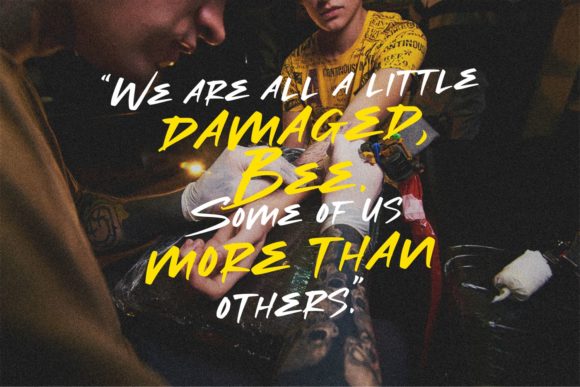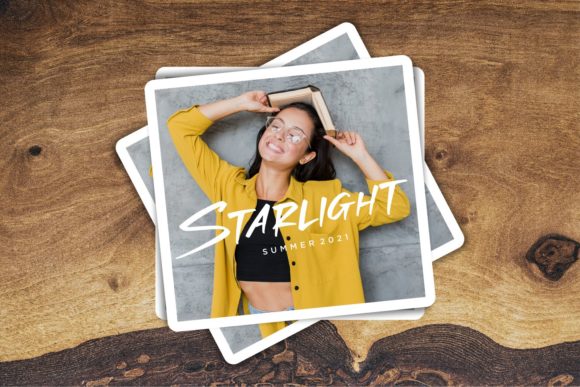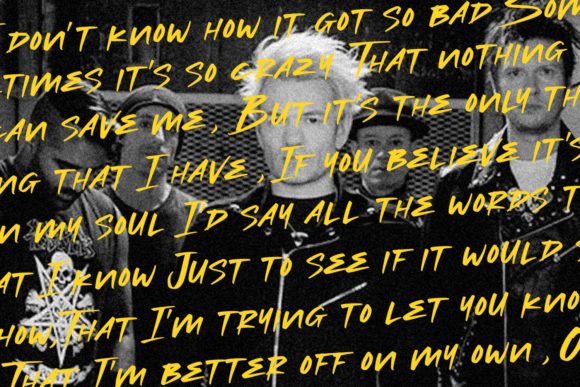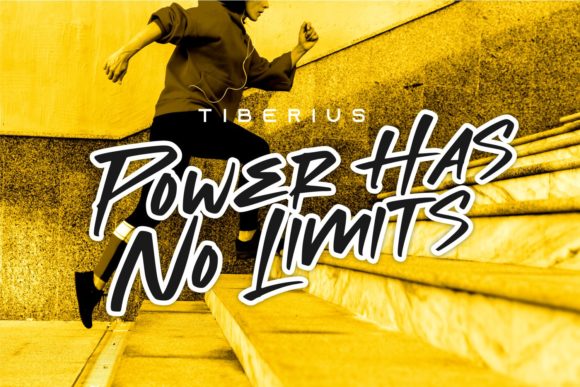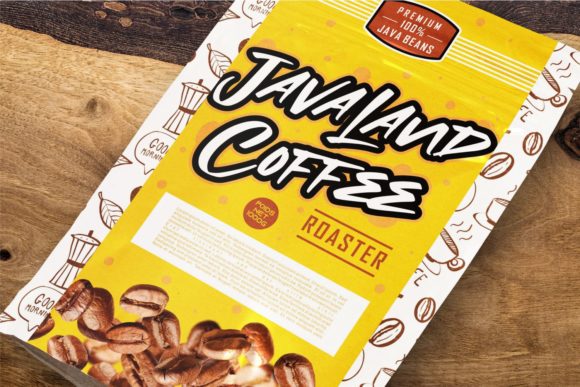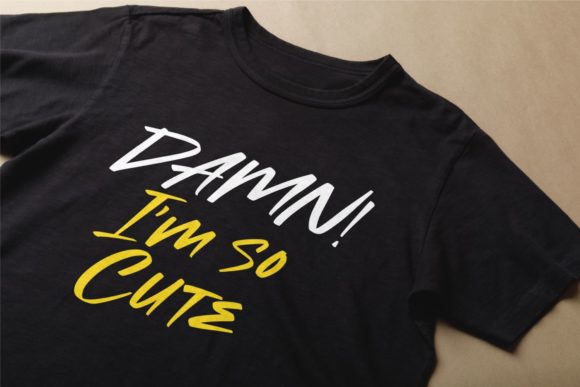
Introduction to Herojuana Font
Have you ever been in the midst of a creative project, staring at a blank page or screen, trying to find the perfect font to bring your vision to life? That’s exactly what happened to many designers when they discovered the Herojuana Font.
This modern display font has been a game-changer in the design world, offering a perfect blend of readability, boldness, and style. With its unique lines and sleek design, Herojuana Font is a valuable resource for any designer looking to elevate their work. Whether you’re working on a fashion branding project or creating an editorial design, this font is sure to impress.
Key Features of Herojuana Font
- High-quality, unique design ideal for creative projects, including graphics, logos, and typography.
- Includes a wide range of characters and glyphs, making it suitable for use in a variety of languages and design applications.
- Perfect for designers and artists looking for a unique and high-quality design element to enhance their creative project.
Honest Review: Herojuana Font
As a designer, I’m always on the lookout for unique and high-quality design resources to elevate my creative projects. Recently, I stumbled upon the Herojuana Font, and I must say it’s a real gem.
What works well: ✨ The Herojuana Font offers a wide range of styles and weights, making it perfect for various design projects. Its sleek and modern design makes it a great choice for any creative project that requires a touch of sophistication.
- High-quality design with transparent background
- Wide range of styles and weights
However, I did encounter a few limitations: ⚠️ The font’s character set is limited, which may not be suitable for projects that require a wide range of characters.
Overall, I’m impressed with the Herojuana Font. Its unique design and high-quality make it a valuable addition to any designer’s toolkit. While it may not be perfect, it’s a great resource for creative projects that require a touch of elegance and sophistication.
The Herojuana Font is ideal for use in a variety of creative projects, including logos, branding materials, social media graphics, and more. Its high-quality design and transparent background make it a versatile and useful design resource.
To get the most out of the Herojuana Font, experiment with different font sizes, colors, and combinations to create unique and visually appealing designs. You can also use the font in conjunction with other design elements to add depth and interest to your project.